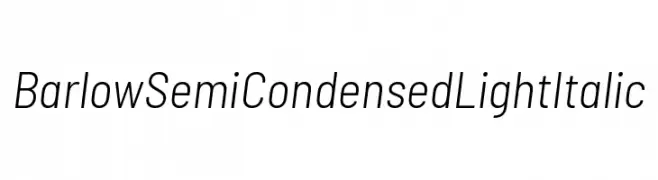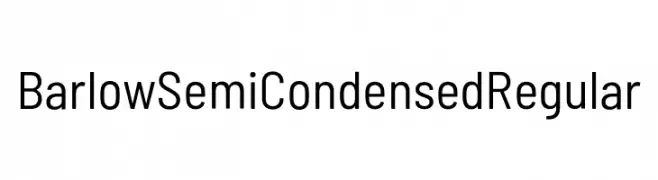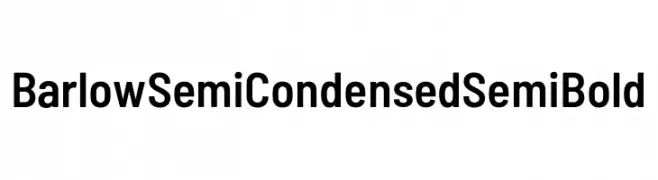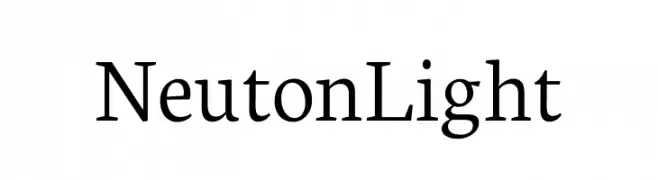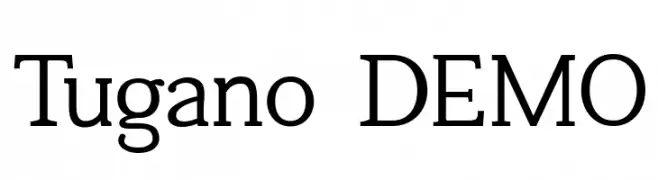
A refined serif font with light weight and classic proportions, offering elegance and readability.
A modern, geometric sans-serif font with balanced proportions.
A modern serif font with clean lines and balanced proportions.
A thin, modern sans-serif font with clean lines and balanced proportions.
A modern, geometric sans-serif font with balanced proportions and clean lines.
A modern, geometric sans-serif font with balanced proportions.
A modern, semi-condensed sans-serif font with clean lines and balanced proportions.
A sleek, modern semi-condensed light italic font with elegant proportions.
A modern sans-serif font with semi-condensed proportions and uniform stroke widths.
A modern, geometric sans-serif font with balanced proportions.